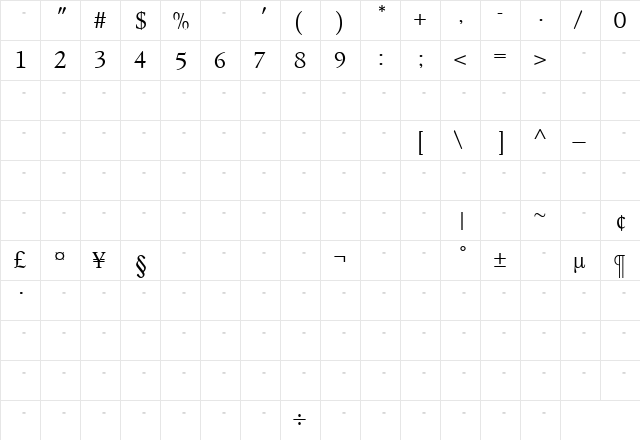
LeightonLightTab Medium
Design Context for LeightonLightTab Typeface
LeightonLightTab is a composed and adaptable typeface that performs quietly and consistently across a wide range of design contexts. Its slender proportions lend an understated elegance to any composition.
Pro Tip: Use LeightonLightTab in both headline and body roles to test its range before committing to a single application.